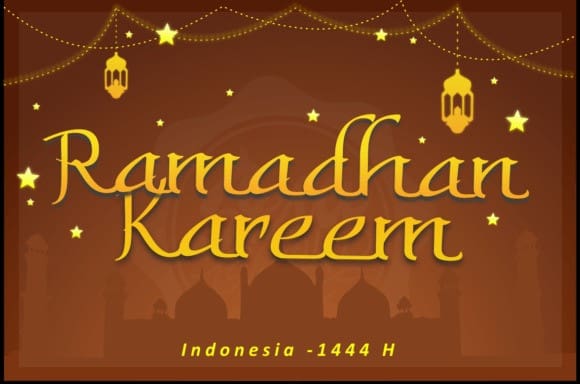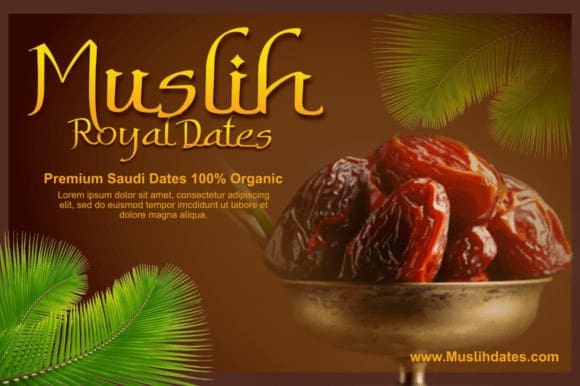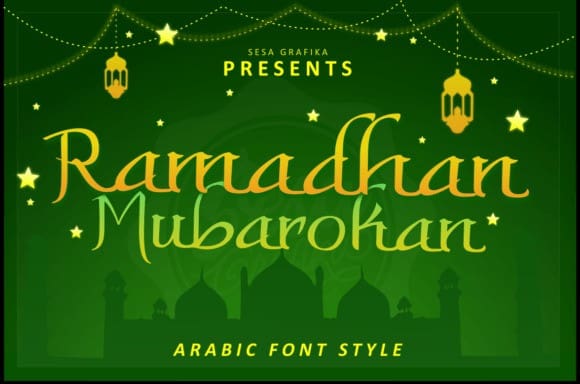
Ramadhan Mubarokan Font
Ramadhan Mubarokan Font, is an interesting display font inspired by the Arabic style and feel. This RamadhanMubarokan font is perfect for any graphic design related to the Islamic style.
This font is suitable for branding logos, Islamic themes, Ramadhan themes, and any other projects you can think of.